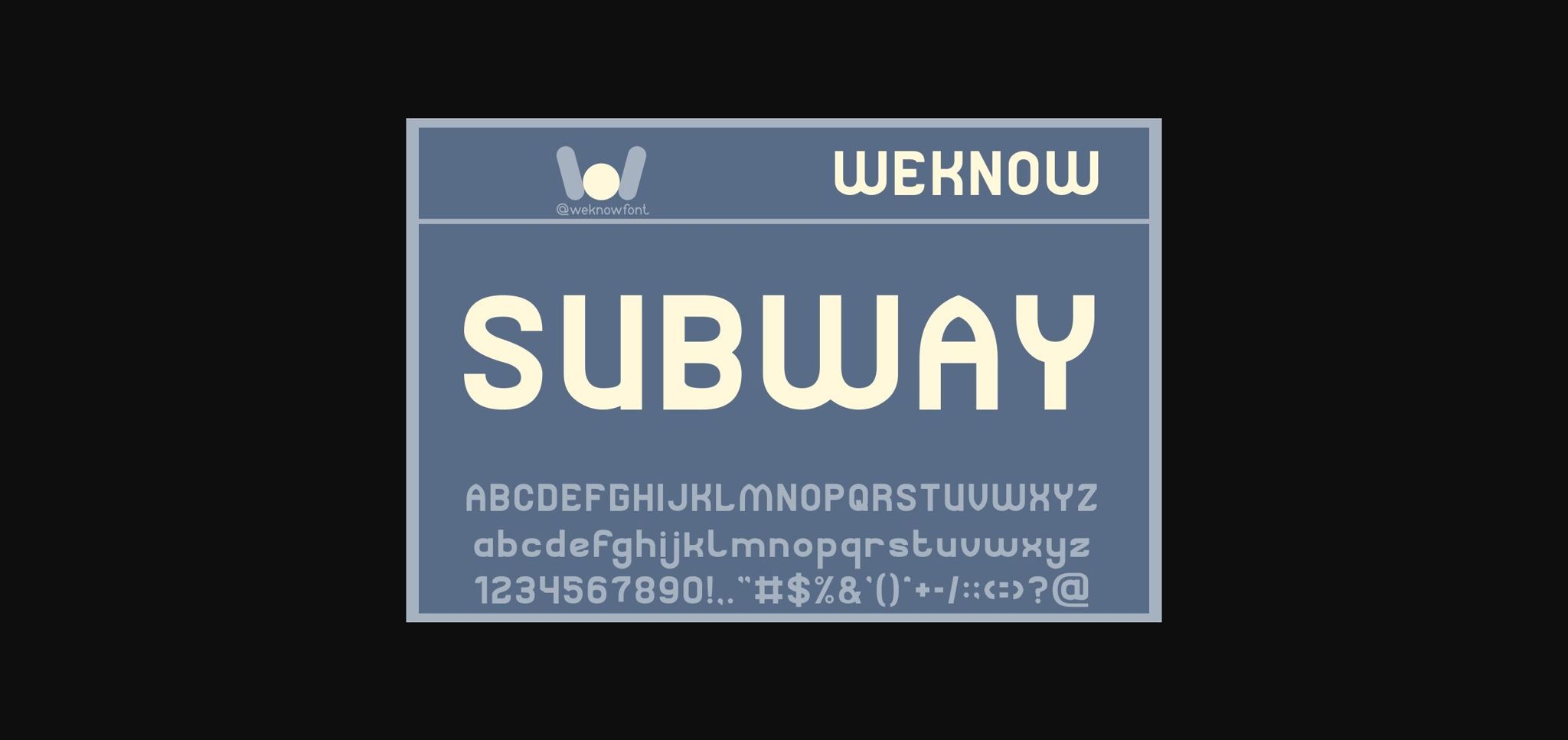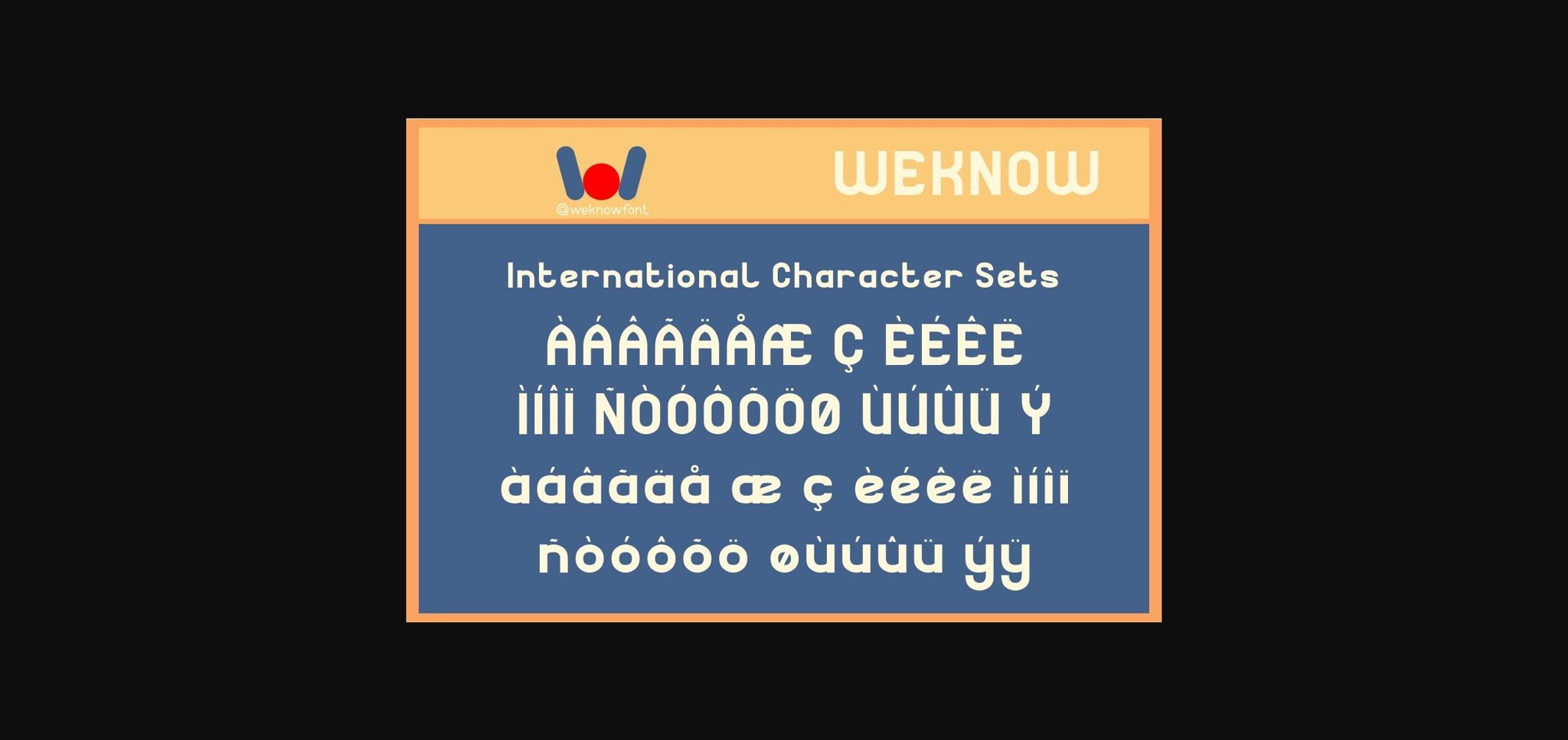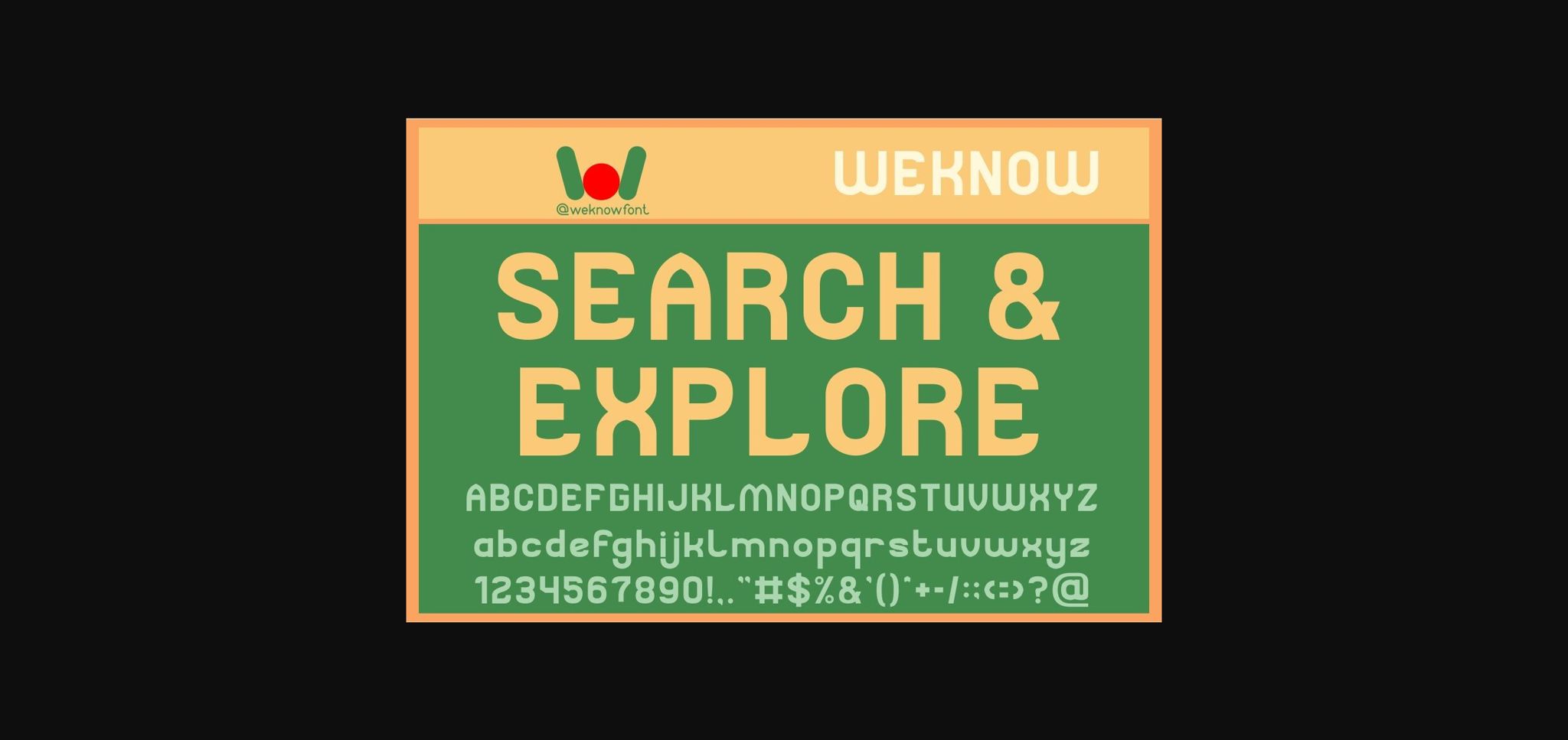
About Subway Font
Subway is a sans-serif basic display font suitable for a logo, logotype, headline, corporate identity, brand identity, apparel industry, poster, music, movie, game, magazine, book, comic, cartoon, YouTube, Instagram, website, or any of your creative design projects.